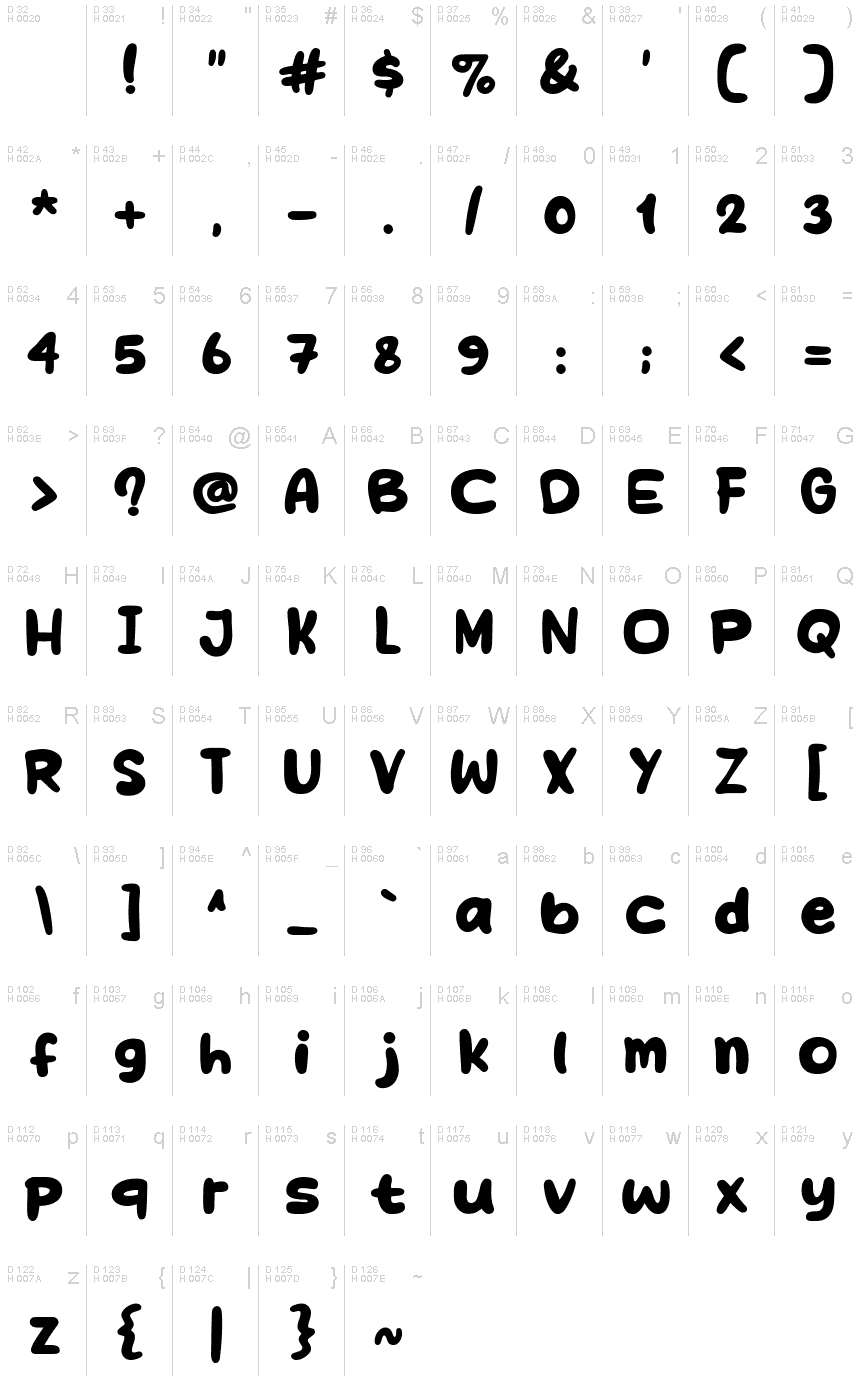
Coffee Terrace
Coffee Terrace, crafted by the talented designer Khurasan, is a captivating display font that effortlessly infuses a playful cartoon style into your projects. Its bold weight adds an extra touch of confidence and impact, making it perfect for eye-catching headlines, logo designs, and packaging that demand attention. With its semi-expanded width, Coffee Terrace provides a harmonious balance between readability and uniqueness. Whether you're designing children's books or creating quirky advertisements for coffee shops or cafes, this font guarantees to add a delightful charm to any project.